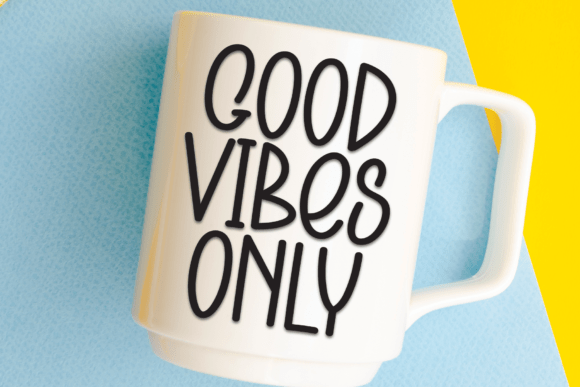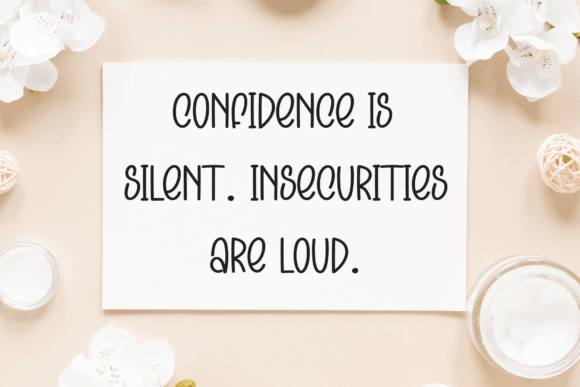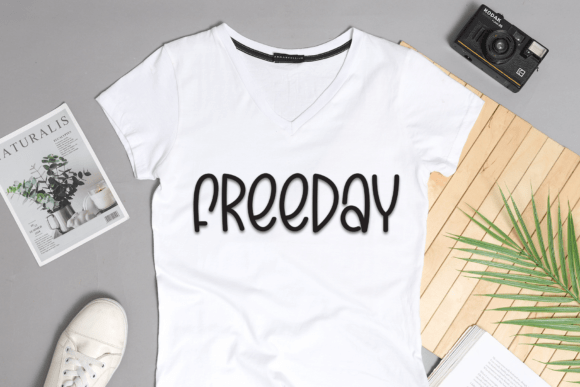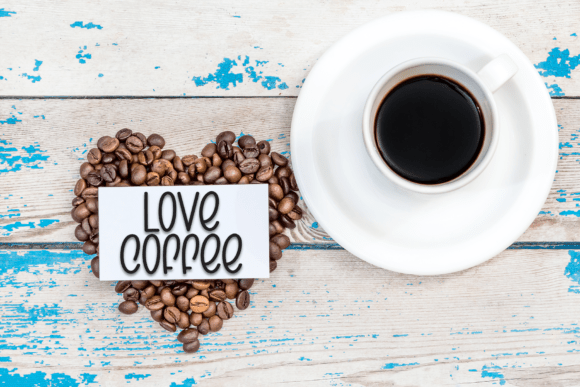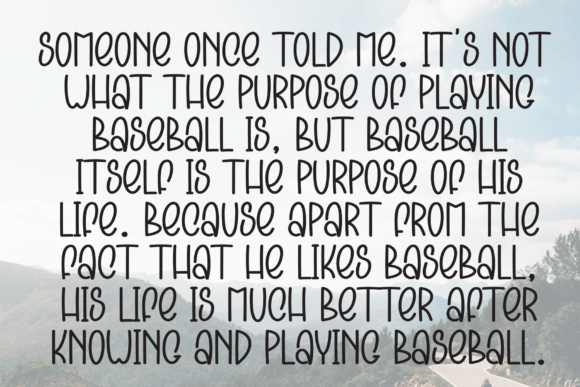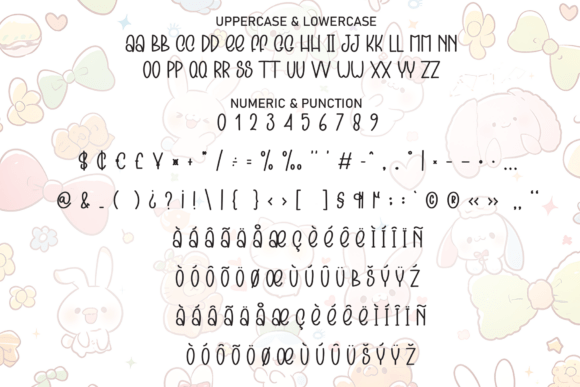
The Joy of Cute Bundle Font: A Designer’s New Best Friend
I still remember the design project that led me to discover the Cute Bundle font. I was working on a children’s product line, and my client requested a font that was playful, cheerful, and engaging. I scoured the internet for the perfect font, but nothing seemed quite right – until I stumbled upon Cute Bundle. Its clean lines, tall, rounded letterforms, and hand-drawn feel instantly won me over. I knew I had found the perfect fit for my project, and it’s been a staple in my design toolkit ever since.
An Honest Review of Cute Bundle Font
- ✨ Playful and bubbly vibe that’s perfect for kids’ products and kawaii branding
- ✅ Clean lines and tall, rounded letterforms that make it easy to read
- ✅ Friendly style that speaks joy in every letter
- ✨ Hand-drawn feel that adds a touch of whimsy to any design
While Cute Bundle is an amazing font, it’s not perfect. Here are a few things to keep in mind:
- ⚠️ Some letters may be a bit too rounded for very small font sizes
- 🤔 Limited availability of certain special characters
- Experiment with OpenType features, such as ligatures and stylistic alternates, to add visual interest to your design
The Story Behind Cute Bundle Font
Cute Bundle was designed with one goal in mind: to spread joy through typography. The designer, a passionate lover of all things cute and kawaii, set out to create a font that would bring a smile to people’s faces. With its clean lines, rounded letterforms, and hand-drawn feel, Cute Bundle is the perfect embodiment of that goal.
A: Cute Bundle is perfect for children’s products, kawaii branding, classroom materials, and cheerful designs.
Q: Is Cute Bundle a script font?
A: No, Cute Bundle is a sans-serif font with a hand-drawn feel.